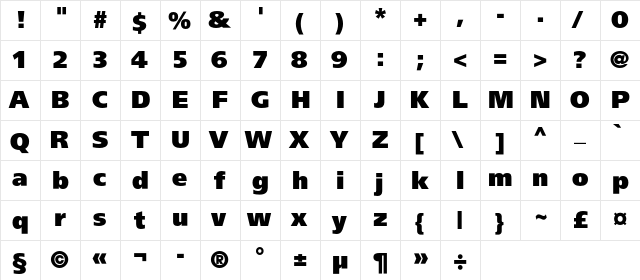
AGForeignerBlackC Regular
Design Context for AGForeignerBlackC Typeface
AGForeignerBlackC takes a measured approach to typography — its balanced proportions and neutral character make it a reliable workhorse for both digital and print work.